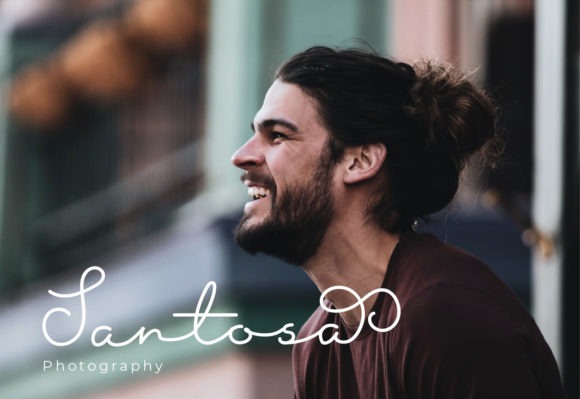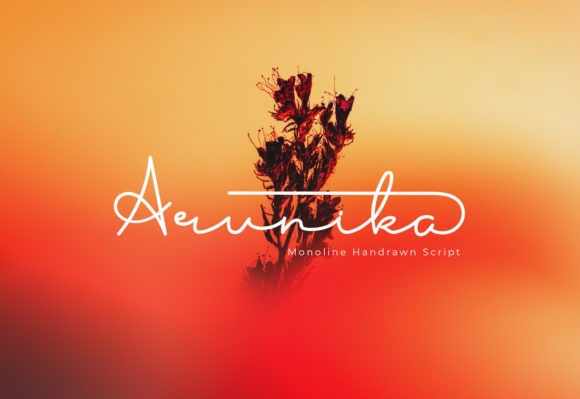
Arunika Handwritten Font
This is a signature style monoline font, with natural curves. It will add a luxury spark to any design project that you wish to create! This signature font is perfect for weddings, watermarks, branding, business, business cards, product logos, etc.